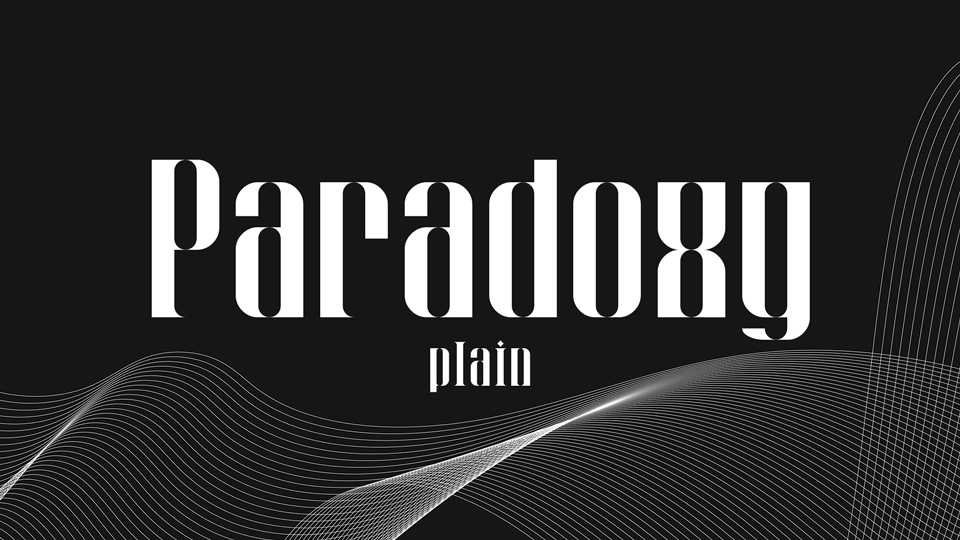
Paradoxy Plain Font › Fontesk – Download Grátis
Download Paradoxy font, a modular typeface with high contrast. Paradoxy font is great for headlines, logos, posters and other artworks.
Designer: Pixel Kitchen